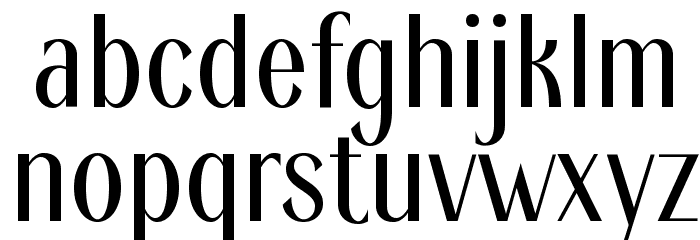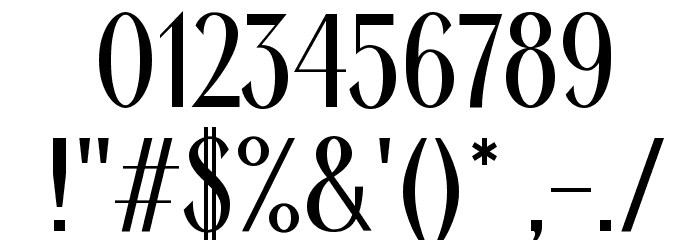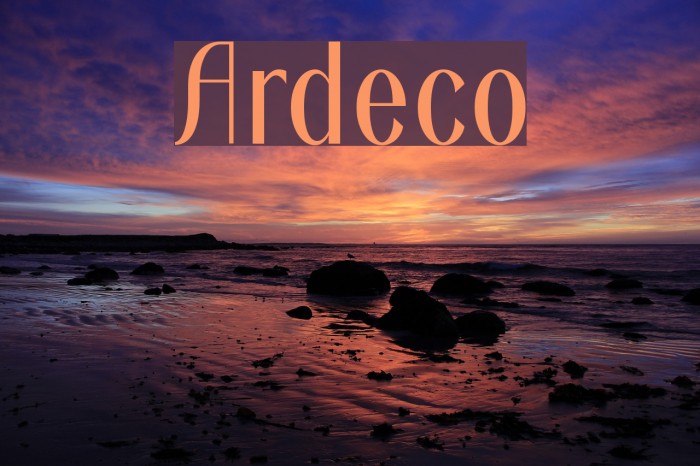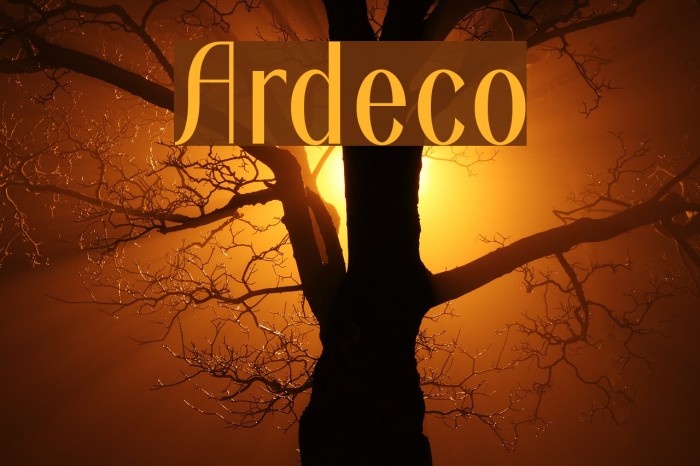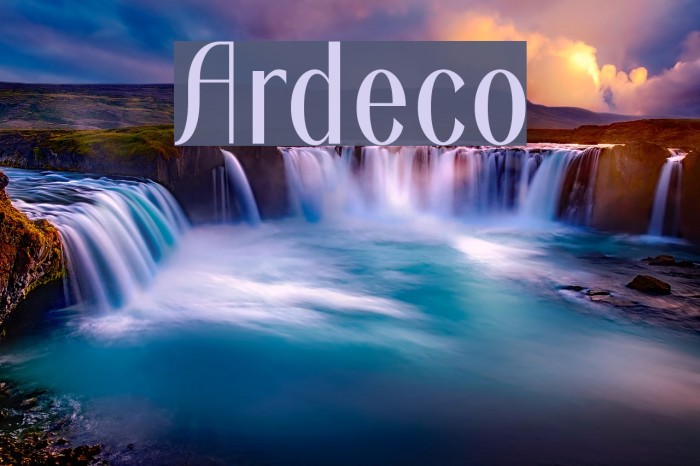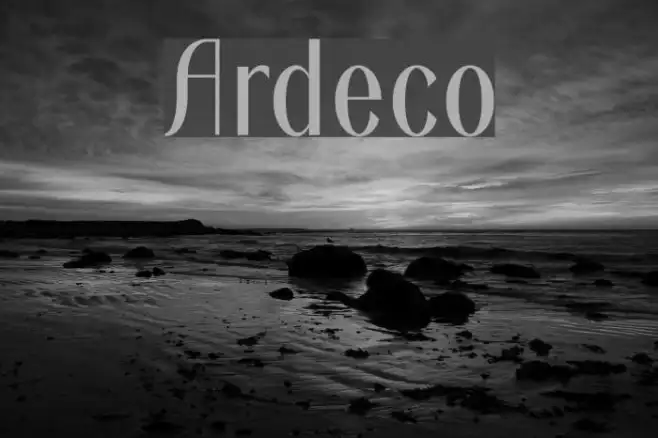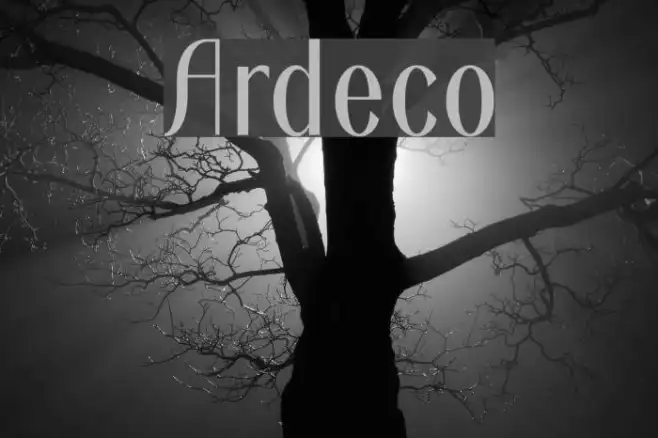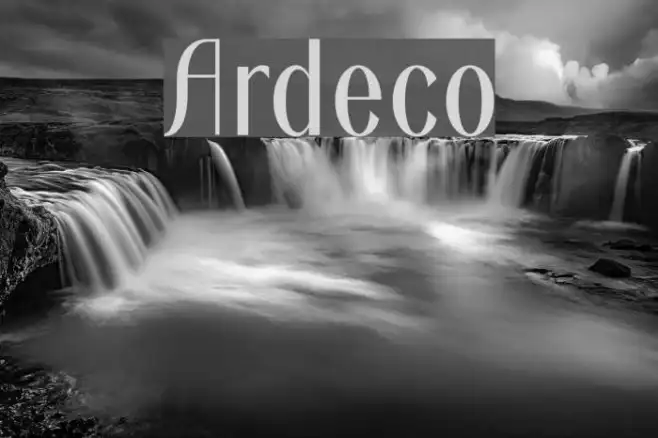
Ardeco Font
This font features a sleek and elegant design, characterized by its tall, narrow letterforms and subtle curves. The uppercase letters exhibit a distinct art deco influence, with geometric shapes and a sense of sophistication. The lowercase letters maintain a consistent style, offering a harmonious blend with the uppercase. The numerals are clear and legible, matching the overall aesthetic. Special characters are thoughtfully designed, ensuring versatility across various applications. The font's unique style makes it suitable for projects that require a touch of vintage elegance and modern flair.
A sleek, art deco-inspired font with tall, narrow letterforms and subtle curves.
- Proposed Projects: Ideal for branding, posters, invitations, and editorial design where a vintage yet modern look is desired.
- Overall Style: Vintage